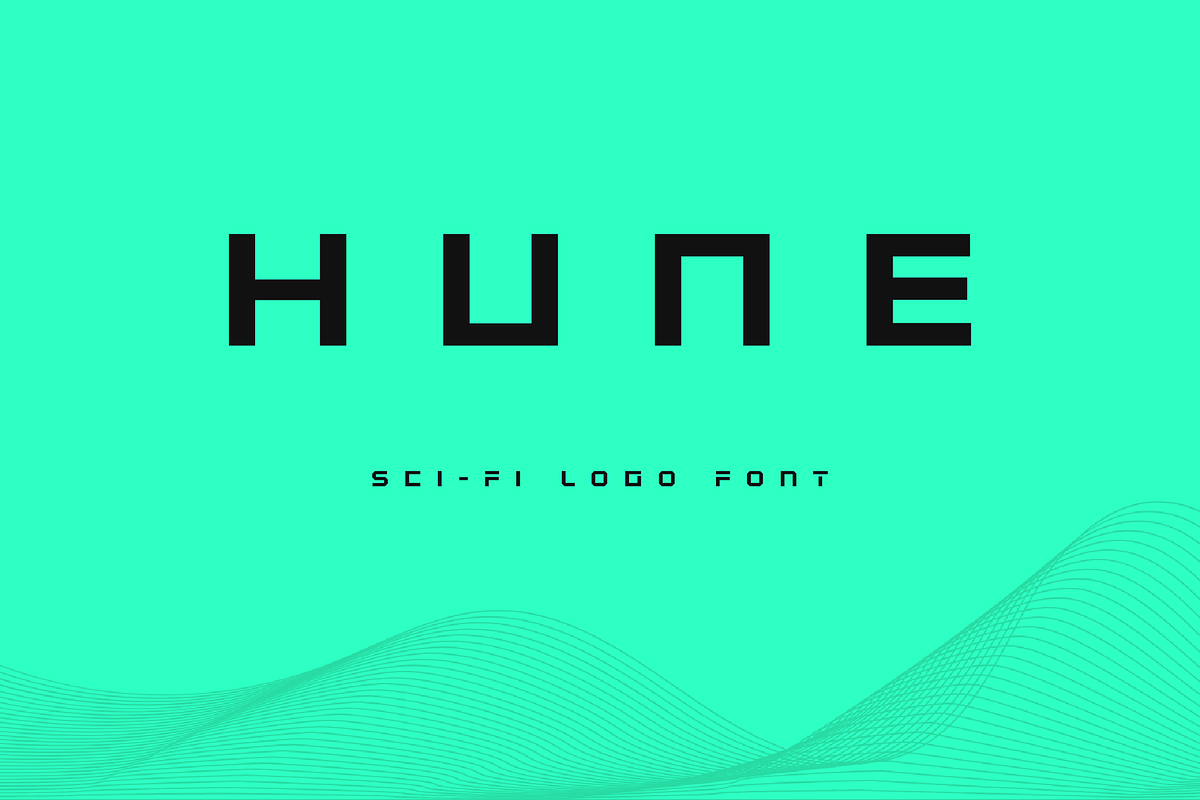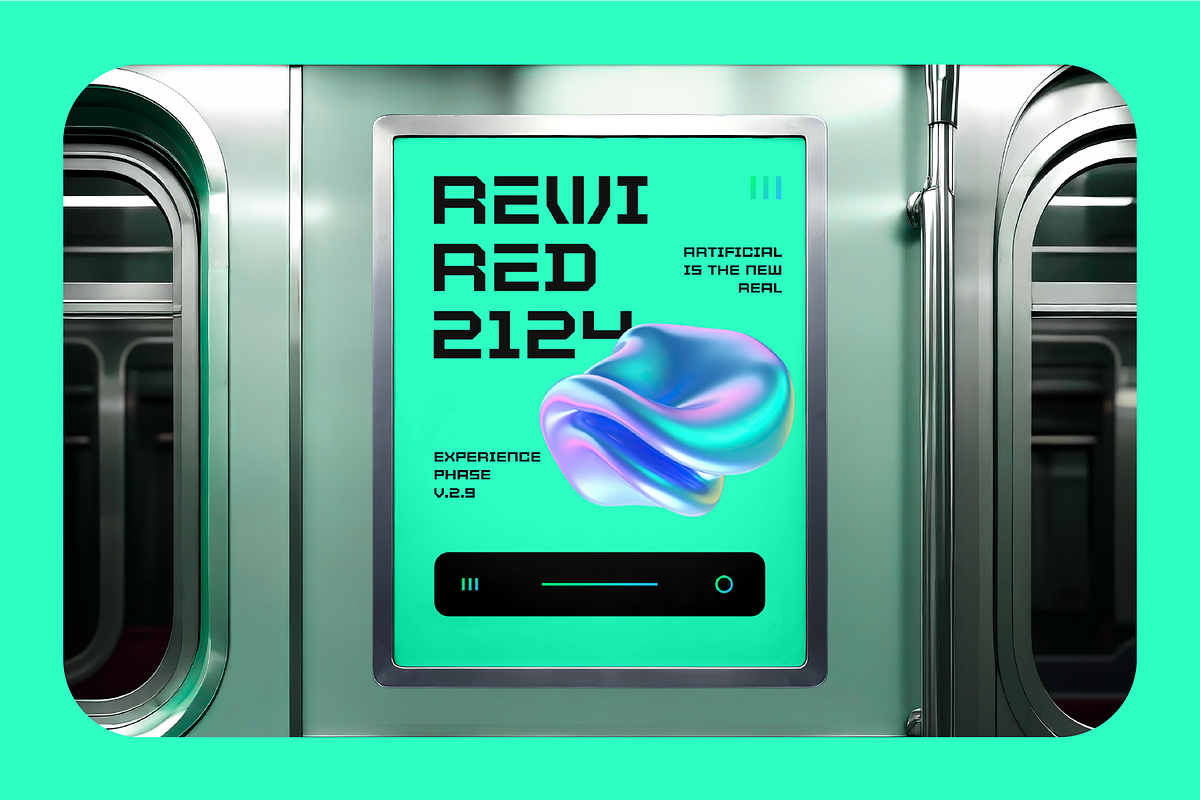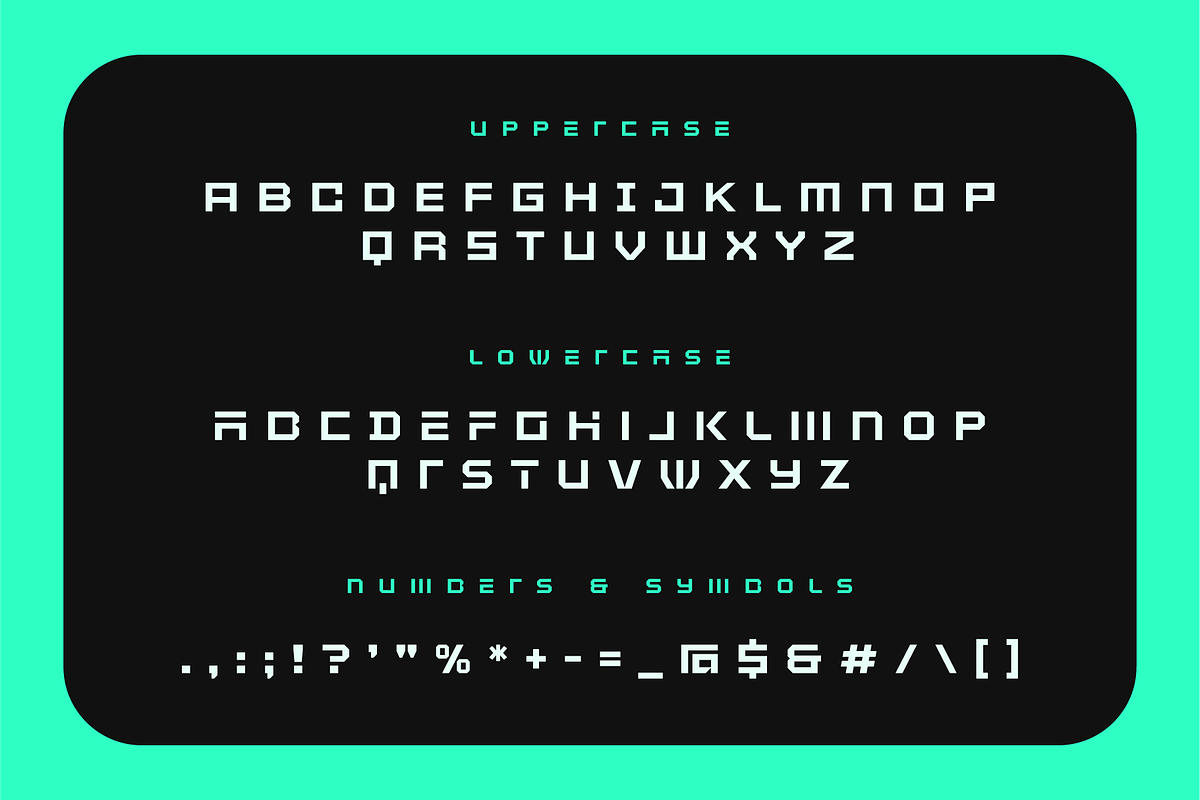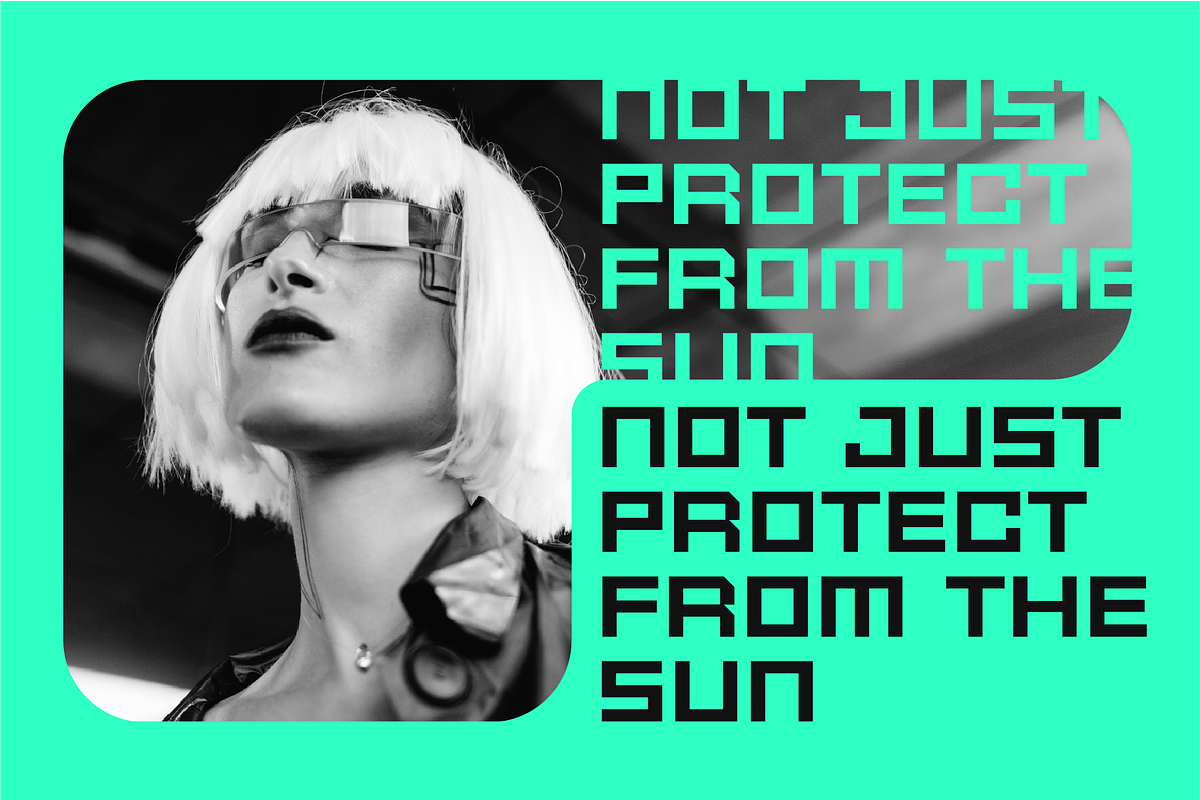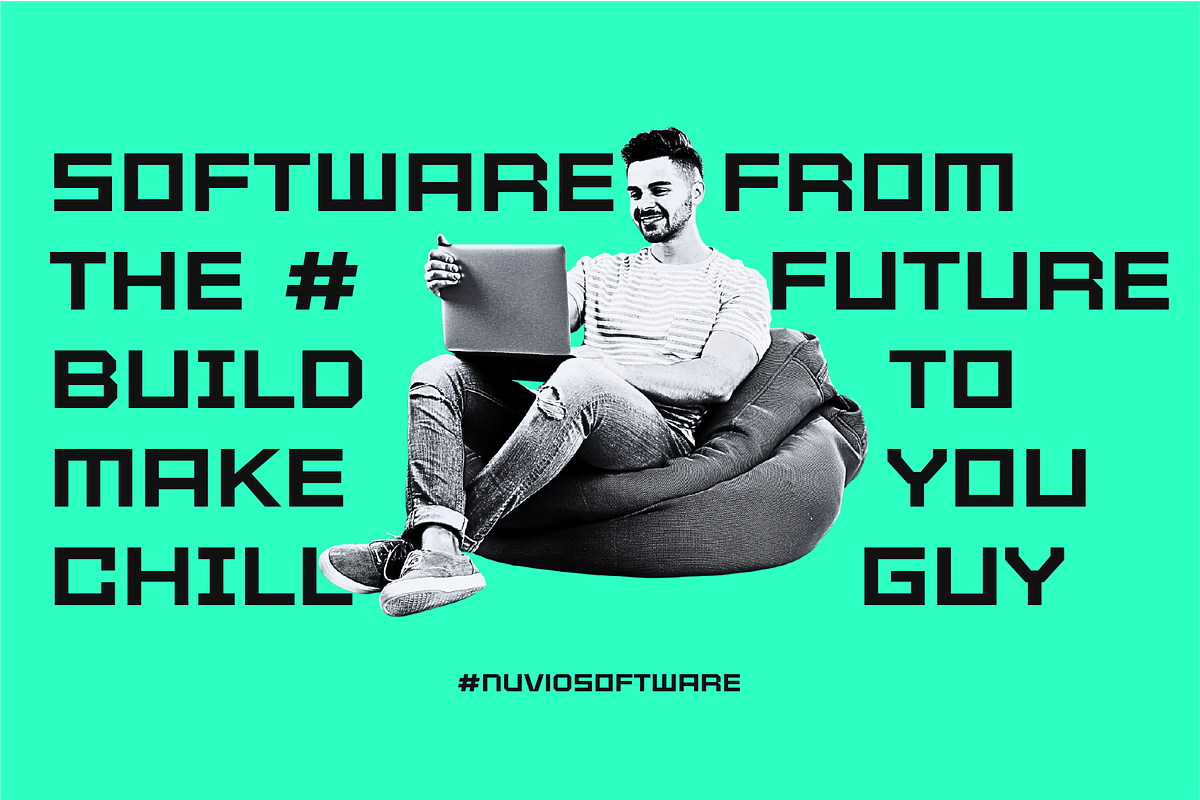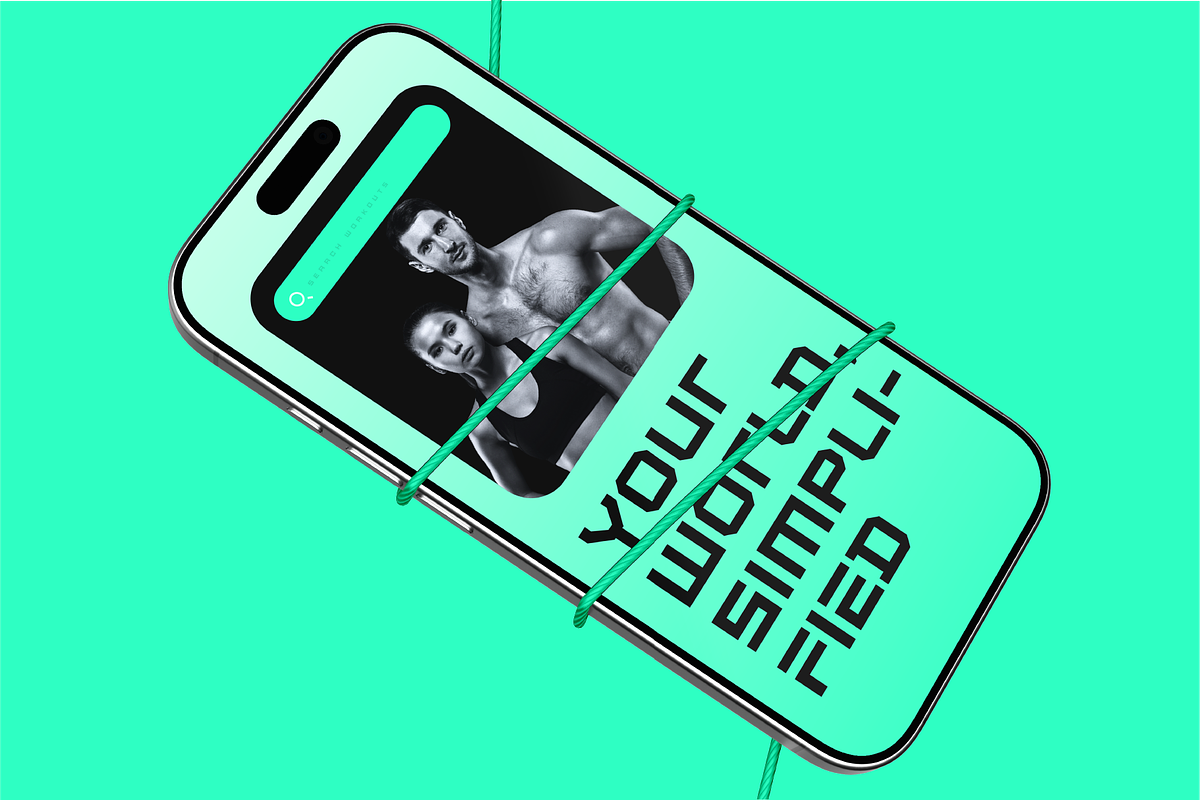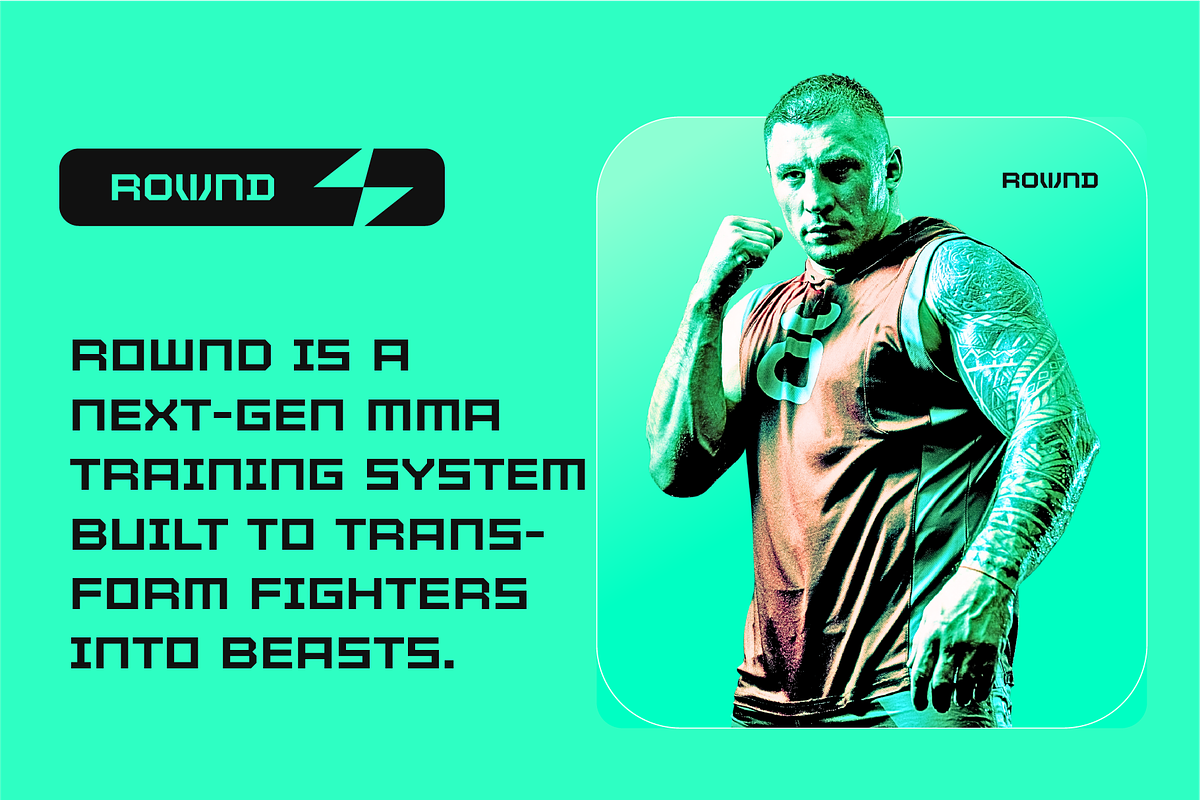
Hune-Blocky Sci-fi Logo Font
Hune is a bold, blocky sci-fi font crafted for futuristic branding, technology logos, and digital interfaces. Featuring sharp angles, square proportions, and a sleek tech aesthetic, Hune is ideal for game titles, space-themed posters, robotics branding, and high-tech UI design. Its clean, geometric letterforms deliver a strong cyberpunk and industrial vibe, giving your visuals a cutting-edge, modern feel. Each letter includes a unique alternate, uppercase, and lowercase form that are intentionally distinct, offering more versatility for logo design and creative layouts.